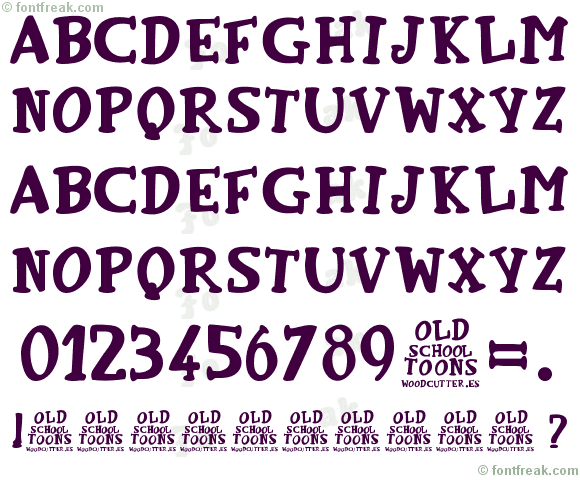
Old School Toons
About Old School Toons
Old School Toons, designed by woodcutter Manero, is a distinctive display typeface that captures the playful essence of classic cartoon lettering. This font showcases a unique blend of whimsical charm and nostalgic flair, making it an ideal choice for projects that require a lighthearted touch. The design features bold, irregular strokes that evoke a hand-drawn appearance, enhancing its visual appeal. With a moderate stroke weight and minimal contrast, Old School Toons maintains readability while still delivering a fun, engaging aesthetic. The letterforms are spaced adequately, ensuring clarity in both large and small text sizes.
This typeface is perfect for a range of creative applications. It shines in children's book covers, where its quirky character can captivate young readers. Additionally, Old School Toons works wonderfully for branding in family-friendly businesses, such as ice cream shops or toy stores, where conveying a sense of joy and nostalgia is essential. It is also an excellent choice for event flyers and posters, particularly those aimed at a youthful audience or retro-themed gatherings. Content creators and graphic designers looking to add a touch of whimsy to social media graphics or website headers will find this font particularly suitable.